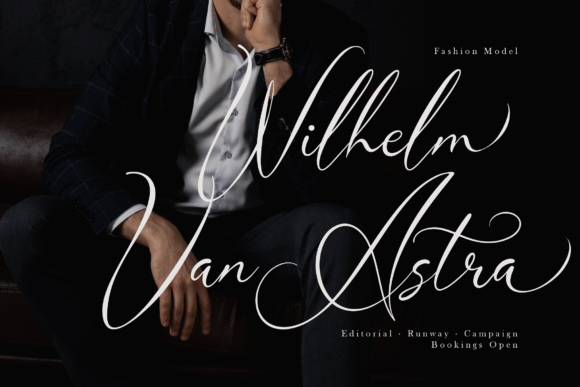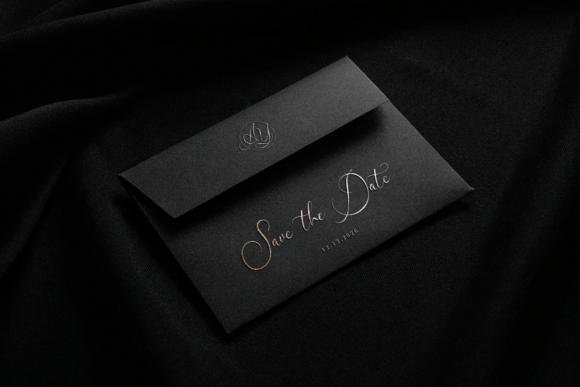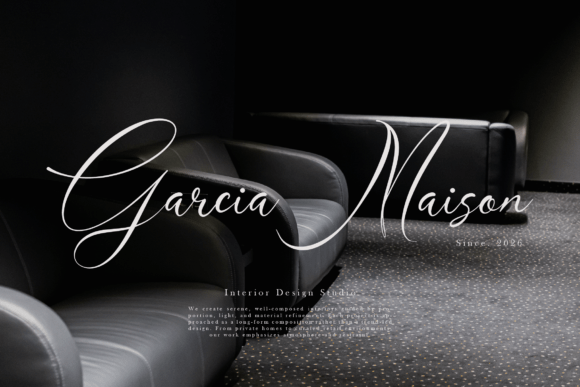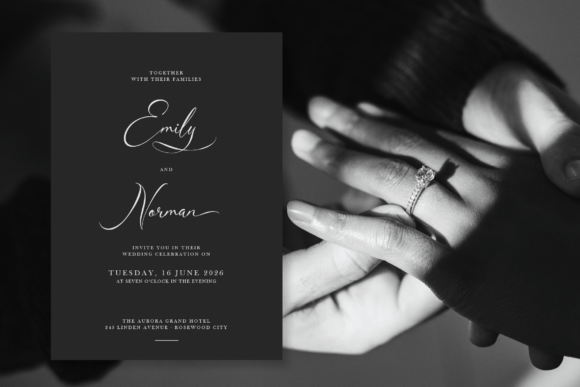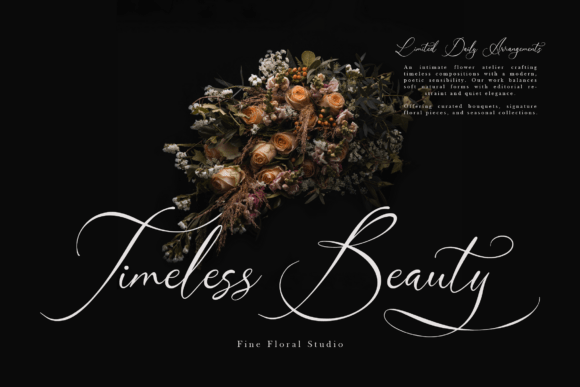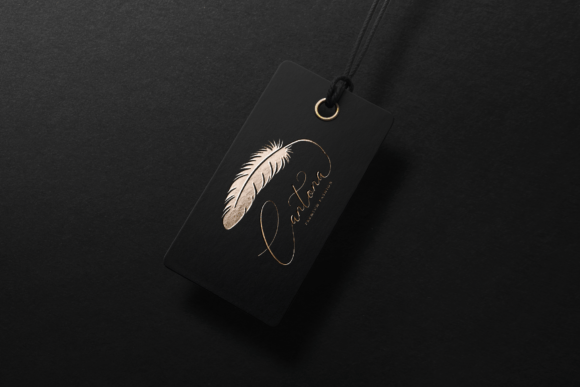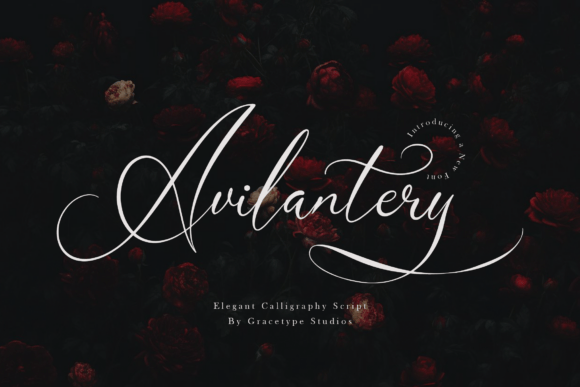
Capture the Essence of Romance with Avilantery Font
Are you looking for a typeface that embodies the elegance and sophistication of high-end wedding stationery and luxury branding? Look no further than Avilantery Font, an exquisite “Elegant Calligraphy Script” that flows with poetic grace. This stunning font is designed to capture the essence of romance, making it a must-have for designers, photographers, event planners, and luxury artisans.
The Beauty of Avilantery Font
Avilantery Font features sweeping flourishes and intricate, hand-penned loops that evoke the feeling of luxury and sophistication. Every letter in the Avilantery typeface is designed to connect seamlessly, creating a sophisticated silhouette that looks stunning on dark, moody backgrounds or gold-pressed foils. The font’s elegant calligraphy script style makes it perfect for creating beautiful wedding stationery, luxury branding, and high-end packaging.
Avilantery Font is a versatile typeface that can be used in a variety of design projects. Whether you’re a designer, photographer, event planner, or luxury artisan, this font is sure to elevate your work. Use it to create stunning wedding stationery, elegant branding, and sophisticated packaging. The font’s PUA encoding makes it easy to use in any design software, and its extensive glyphs and swashes provide endless possibilities for creative expression.
Enhance its Natural Beauty
To truly showcase the beauty of Avilantery Font, consider using it for initials, signatures, or as a decorative accent alongside a clean, modern serif. This will add a touch of elegance and sophistication to your design, making it truly unforgettable. The font’s intricate loops and flourishes also make it perfect for creating beautiful, hand-written quotes and phrases.
Key Features of Avilantery Font
- Elegant Calligraphy Script: Avilantery Font features a beautiful, elegant calligraphy script style that’s perfect for creating high-end wedding stationery and luxury branding.
- Sweeping Flourishes: The font’s sweeping flourishes and intricate, hand-penned loops add a touch of sophistication and elegance to any design.
- Seamless Connections: Every letter in the Avilantery typeface is designed to connect seamlessly, creating a sophisticated silhouette that’s perfect for dark, moody backgrounds or gold-pressed foils.
- PUA Encoding: The font’s PUA encoding makes it easy to use in any design software, and its extensive glyphs and swashes provide endless possibilities for creative expression.
Tips for Using Avilantery Font
Here are a few tips for getting the most out of Avilantery Font:
- Use it for initials and signatures: Avilantery Font is perfect for creating beautiful, elegant initials and signatures that add a touch of sophistication to any design.
- Pair it with a clean, modern serif: Pairing Avilantery Font with a clean, modern serif creates a stunning contrast that’s perfect for creating elegant, high-end designs.
- Experiment with different colors and backgrounds: Avilantery Font looks stunning on dark, moody backgrounds or gold-pressed foils. Experiment with different colors and backgrounds to find the perfect combination for your design.
Avilantery Font is a stunning “Elegant Calligraphy Script” that’s perfect for designers, photographers, event planners, and luxury artisans. Its sweeping flourishes, intricate loops, and seamless connections make it a must-have for creating high-end wedding stationery, luxury branding, and sophisticated packaging. With its PUA encoding and extensive glyphs and swashes, Avilantery Font is easy to use and provides endless possibilities for creative expression. Whether you’re looking to create elegant wedding stationery or sophisticated branding, Avilantery Font is the perfect choice.